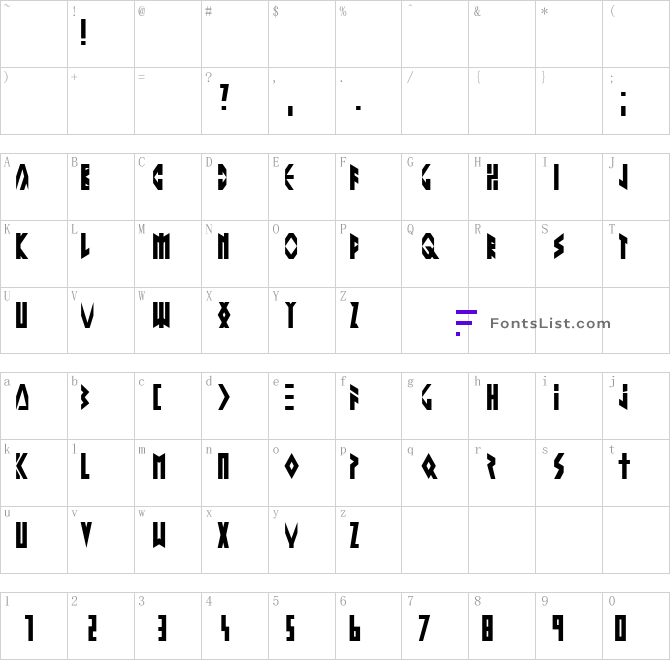
- Font Name:Altering The Future
Altering-The-Future.ttf is a very beautiful artistic font, Altering-The-Future.ttf is widely used in the design and printing of various books and pictures,Altering-The-Future.ttf has a strong visual impact,Altering-The-Future.ttf is a commonly used font in newspapers, magazines and books, and is used in posters, e-commerce Poster design, store design, logo design, font design and other fields.Altering-The-Future.